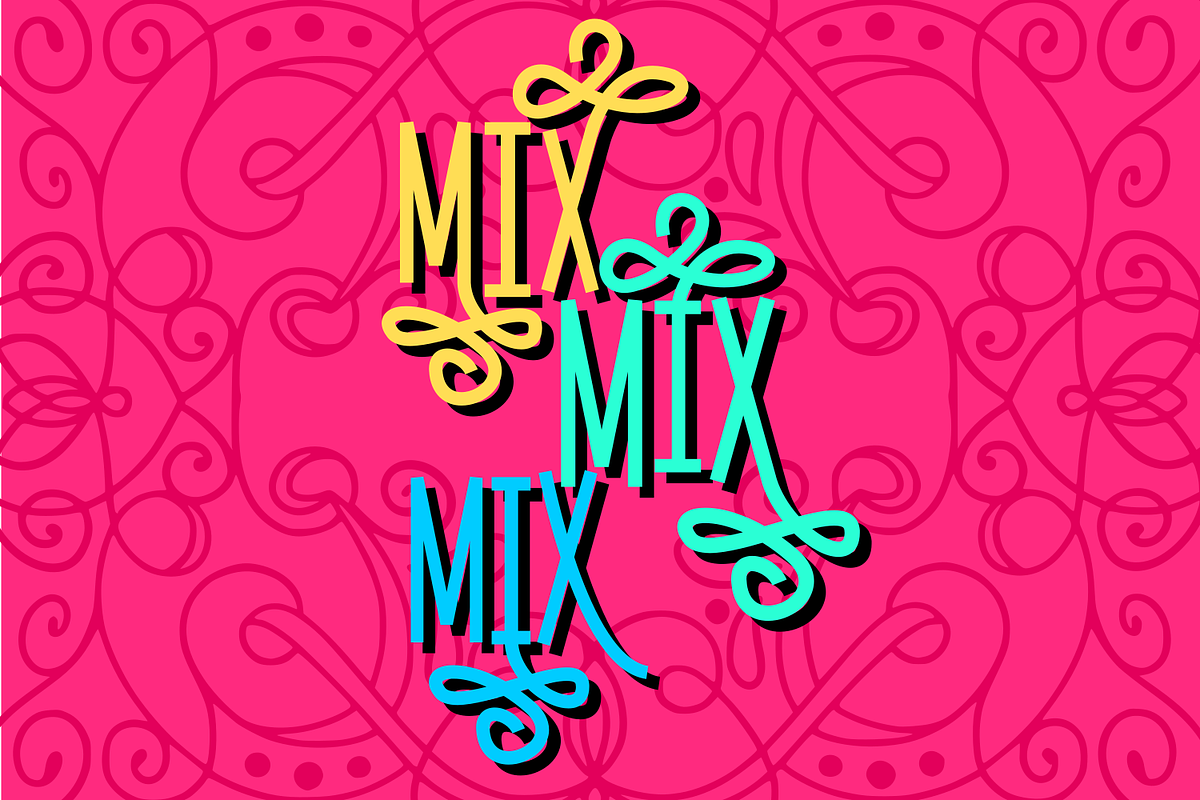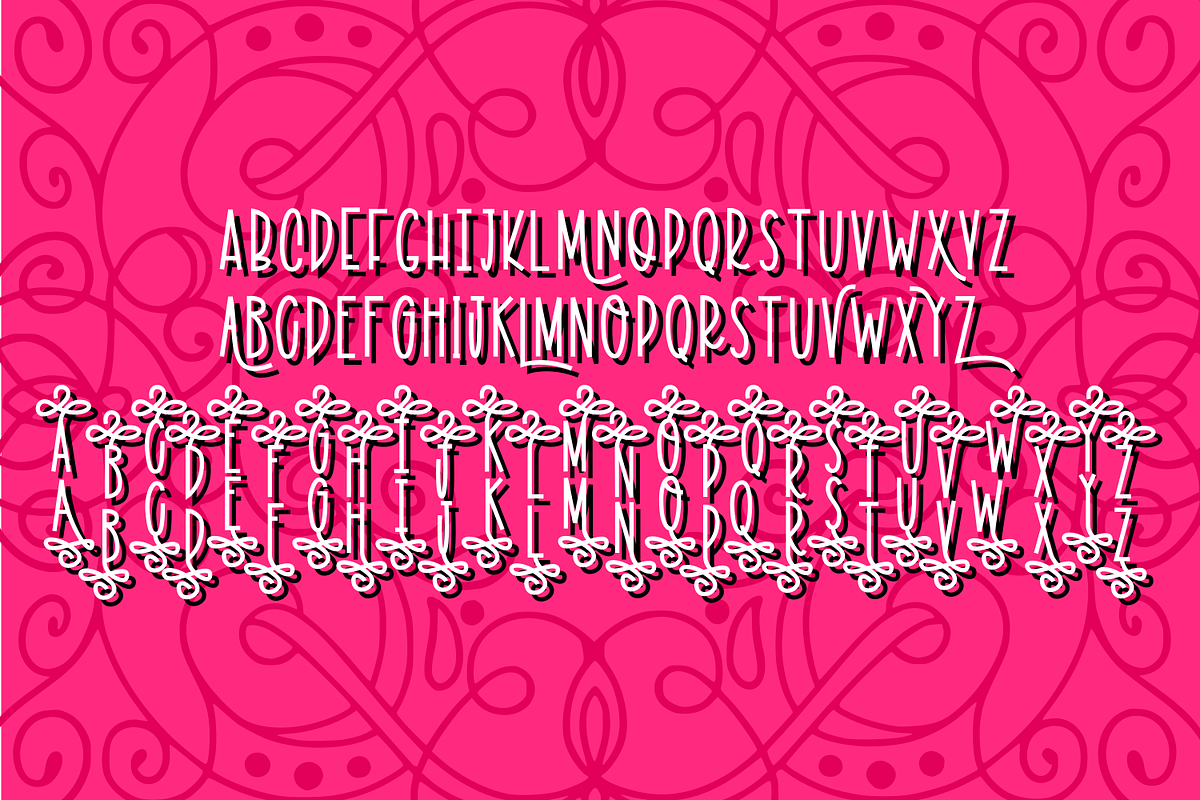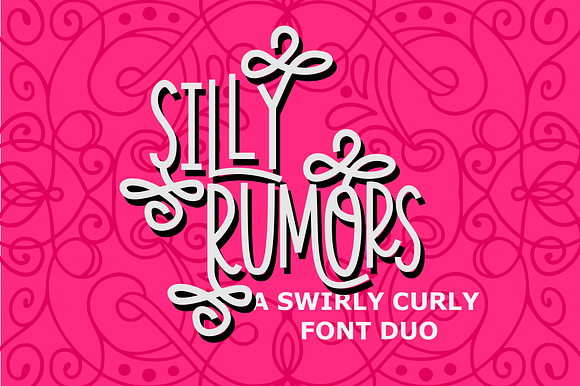
Silly Rumors - Font Duo
Why Silly Rumors - Font Duo is worth a look
Silly Rumors - Font Duo by CraftyLittleNodes fits naturally into Branding, posters, packaging, typography.